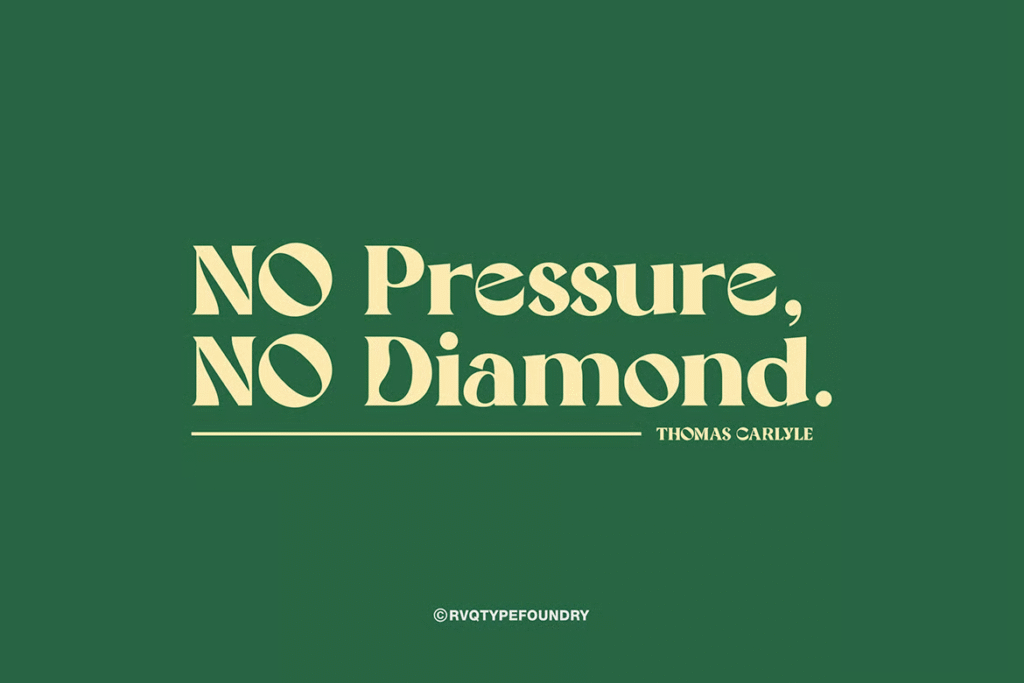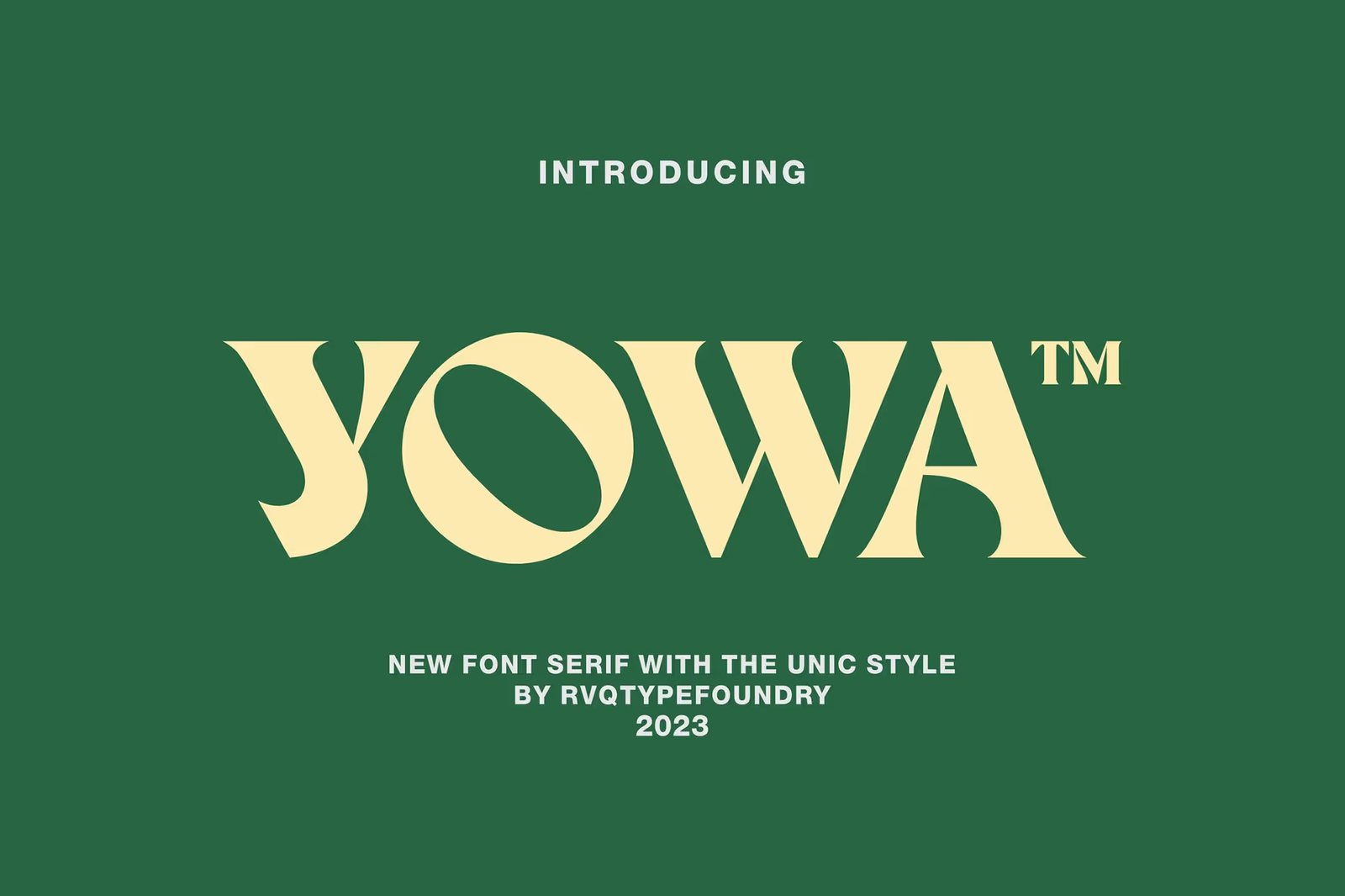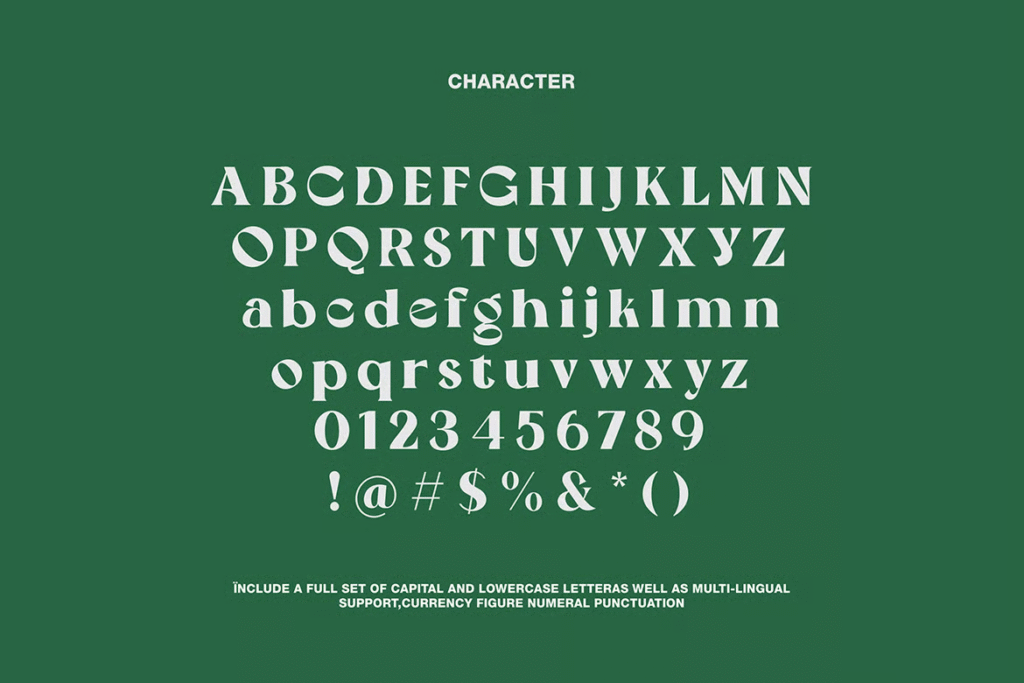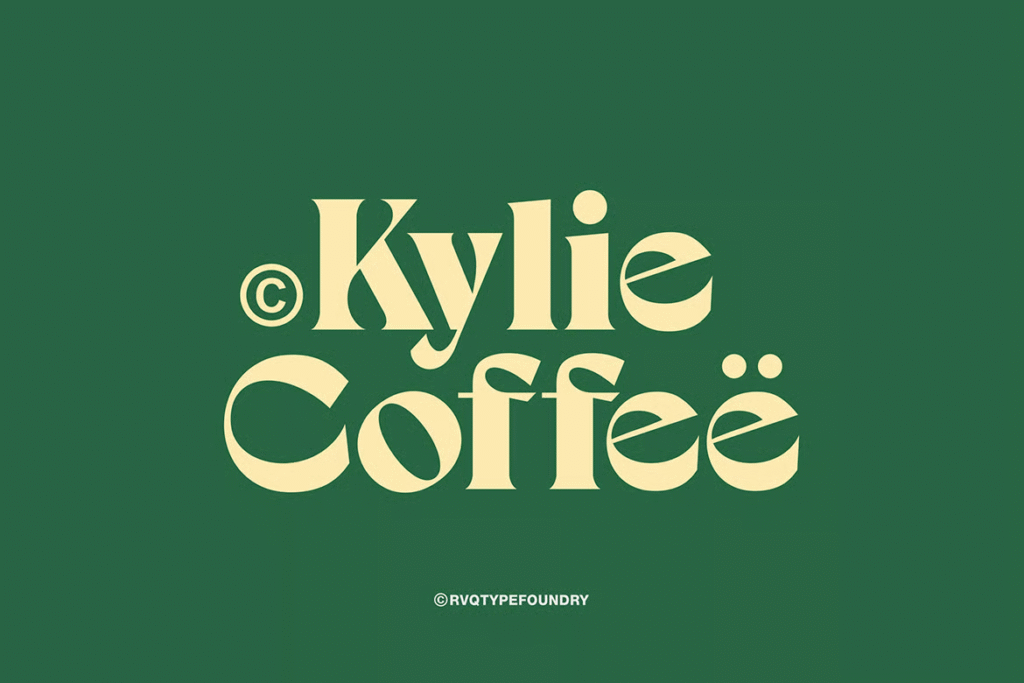
YOWA Typeface
Yowa Typeface – elegant font by Rvq Typefoundry for branding and design
Yowa Font – stylish combination of uppercase and lowercase letters
Yowa Typeface – font with multilingual support and extra glyphs
Yowa Font – refined letterforms for branding and creative projects
Yowa is an elegant typeface designed by Rvq Typefoundry. With refined styling, it blends uppercase and lowercase letters beautifully for striking compositions. The set includes full uppercase and lowercase characters, punctuation, additional glyphs, numbers, currency symbols, and multilingual support. Its versatility makes it ideal for branding, editorial design, invitations, and creative projects with a sophisticated touch.
YOWA Typeface
Yowa is an elegant typeface by Rvq Typefoundry with multilingual support. Perfect for branding, editorial design, and creative projects.